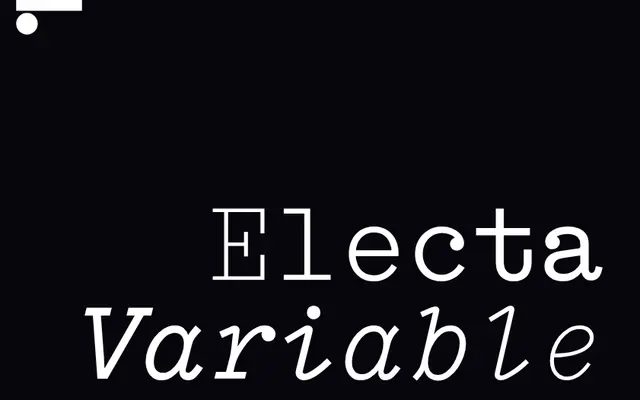
Electa Var specimen from Lineto
A variable typeface from Lineto whose page leans into generative and animated text demonstrations to show the range of its optical variation.
Electa Var is presented by Lineto through animated ASCII-style text compositions that visualise the typeface's variable behaviour across its axes. The page content foregrounds structural and rhythmic qualities rather than conventional weight or width labelling. Its experimental framing places it in display and editorial contexts where variable axis control is part of the visual concept.
Electa Var is a variable typeface presented through animated, generative text demonstrations suggesting optical and structural variation; categorised as display given its experimental, visually led character.